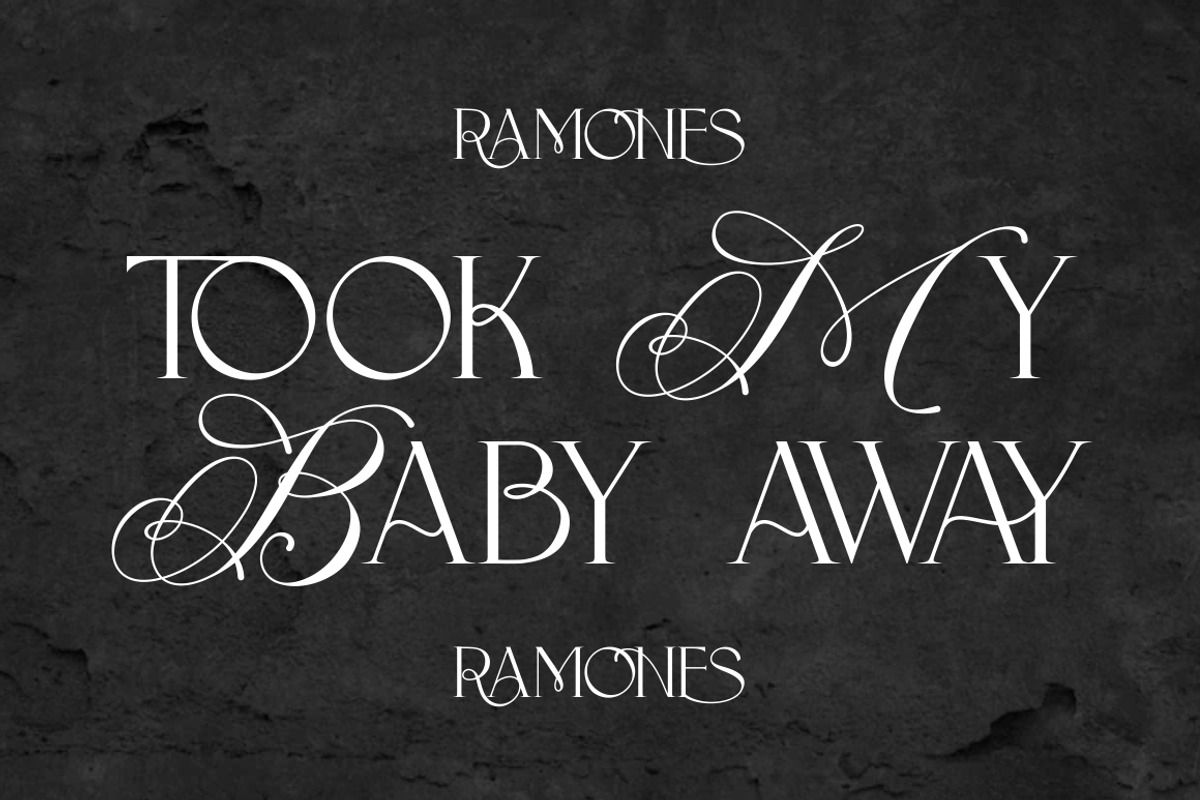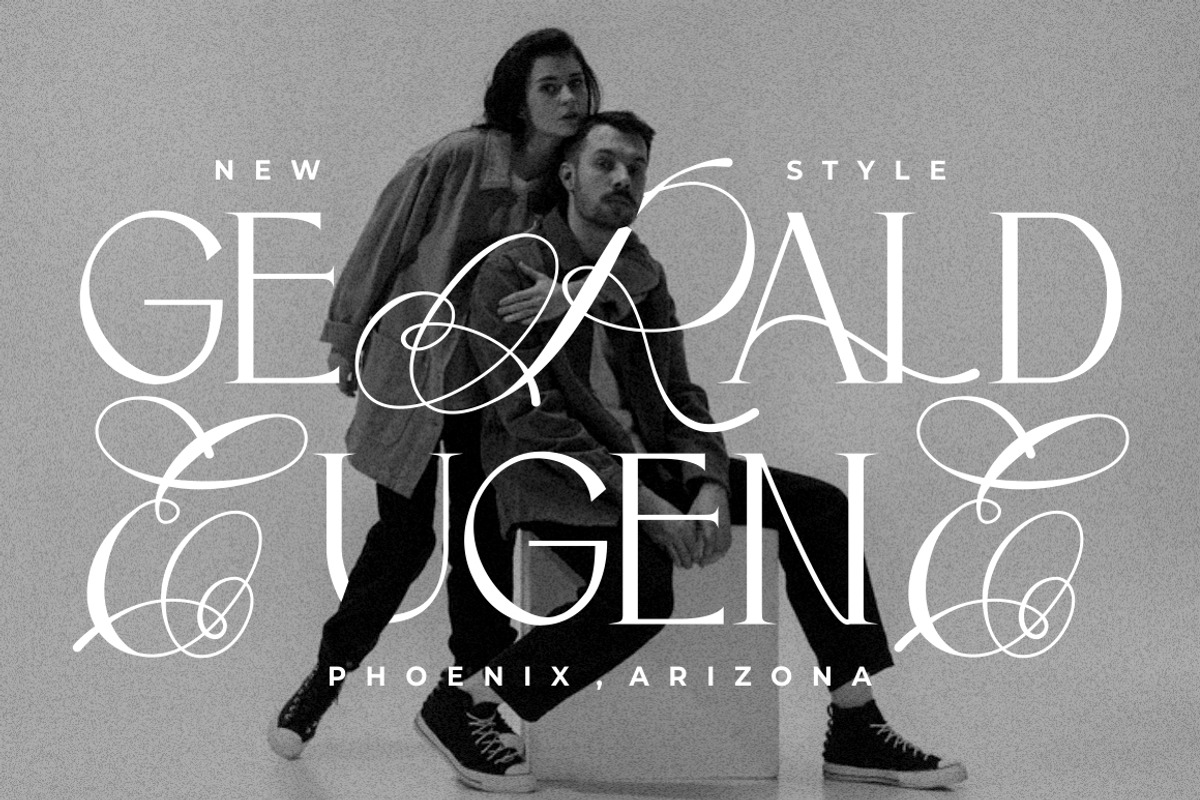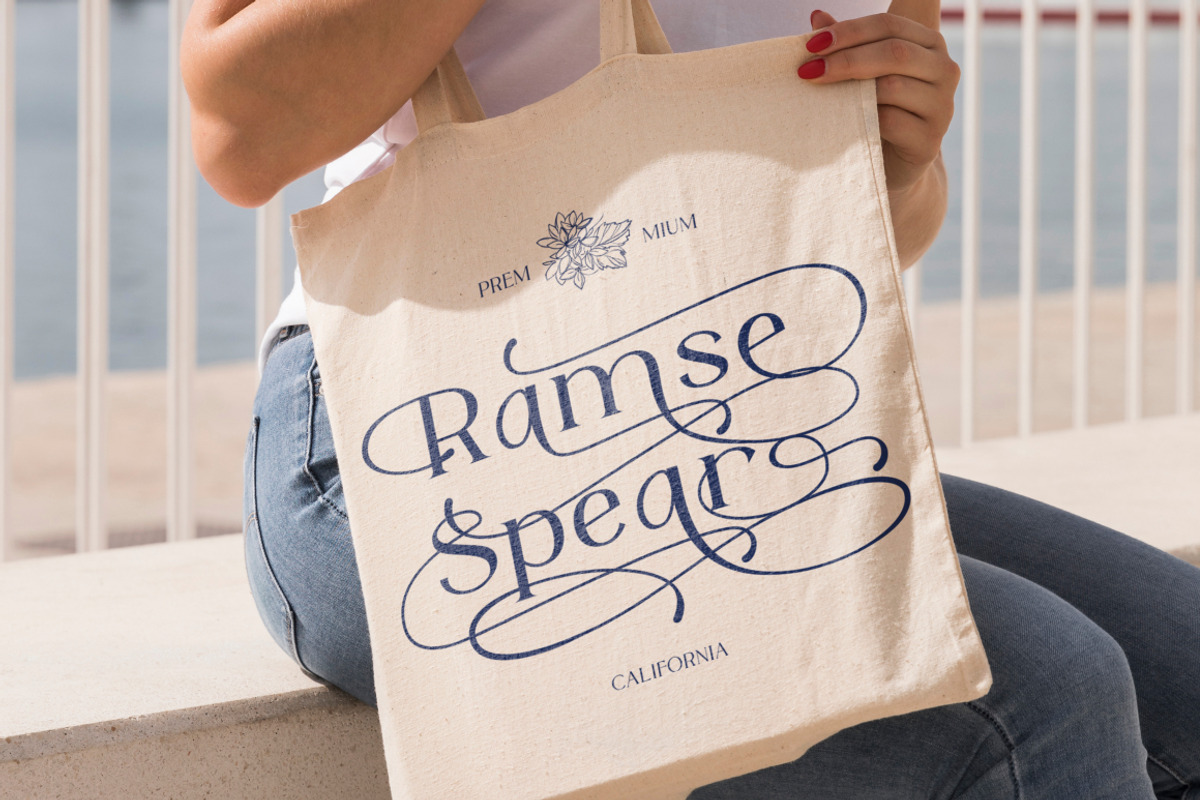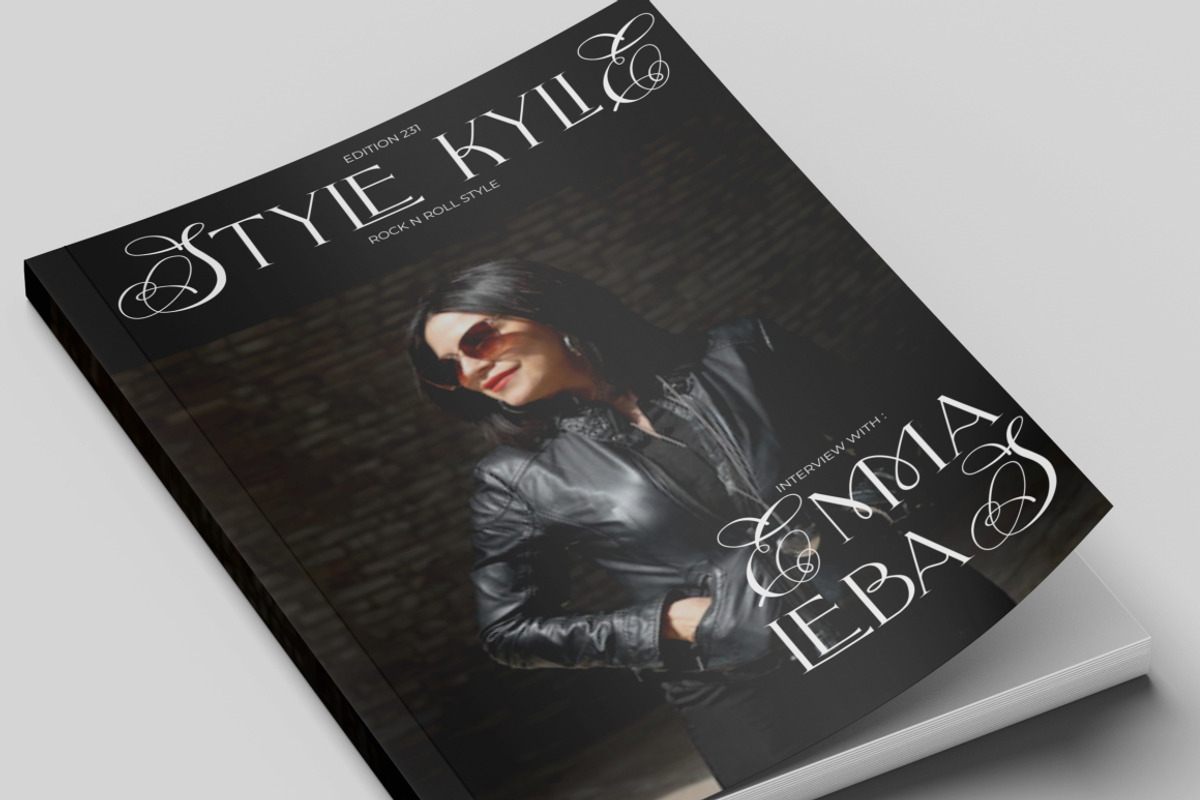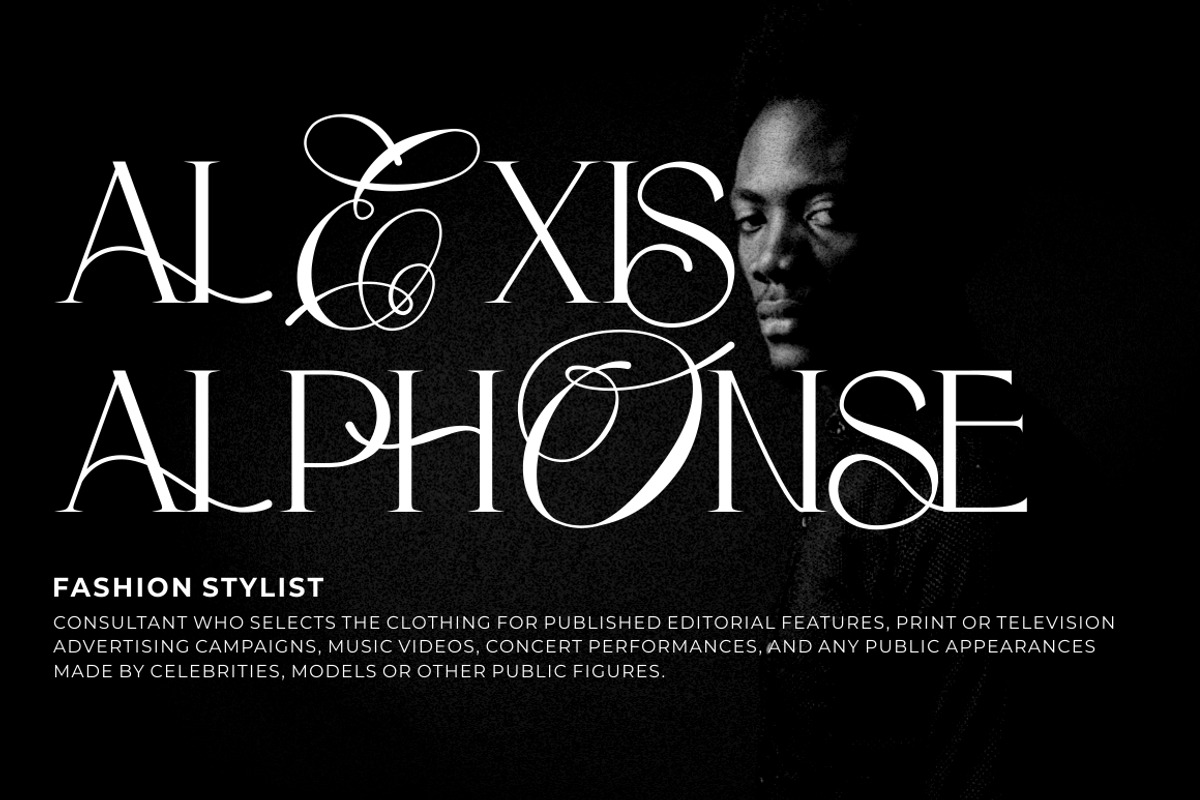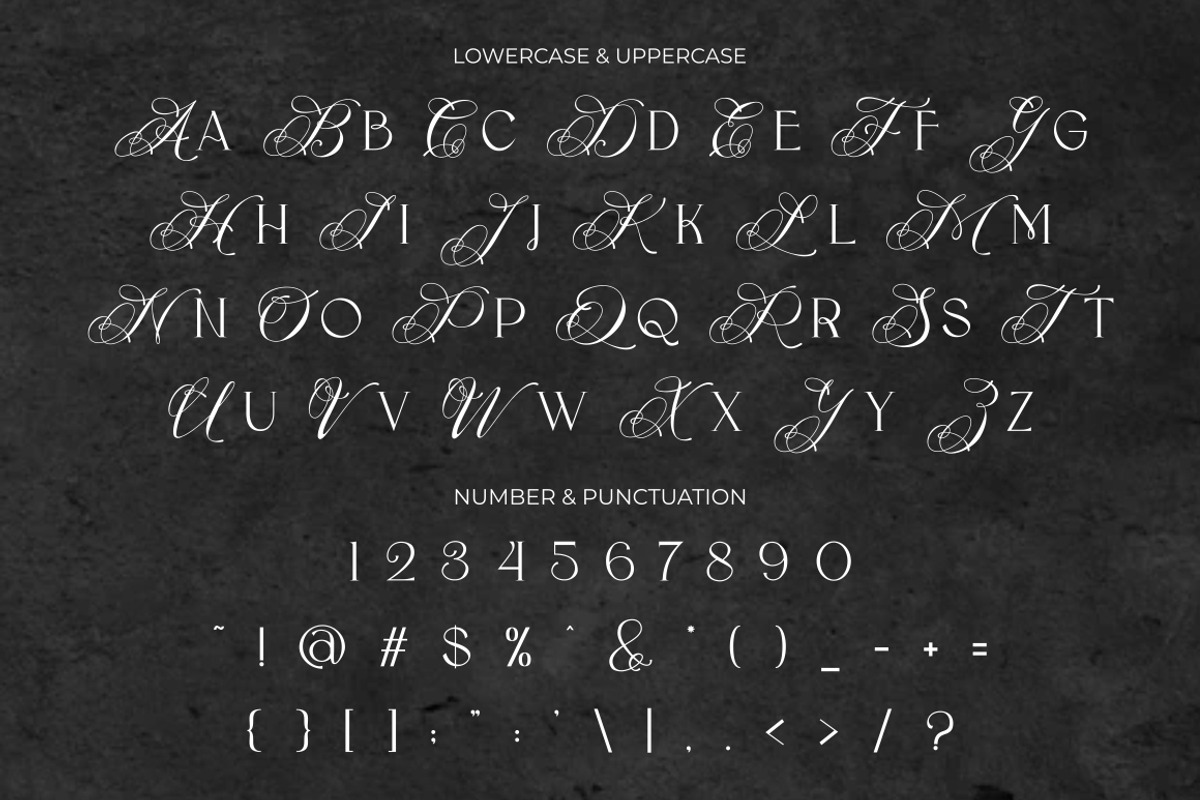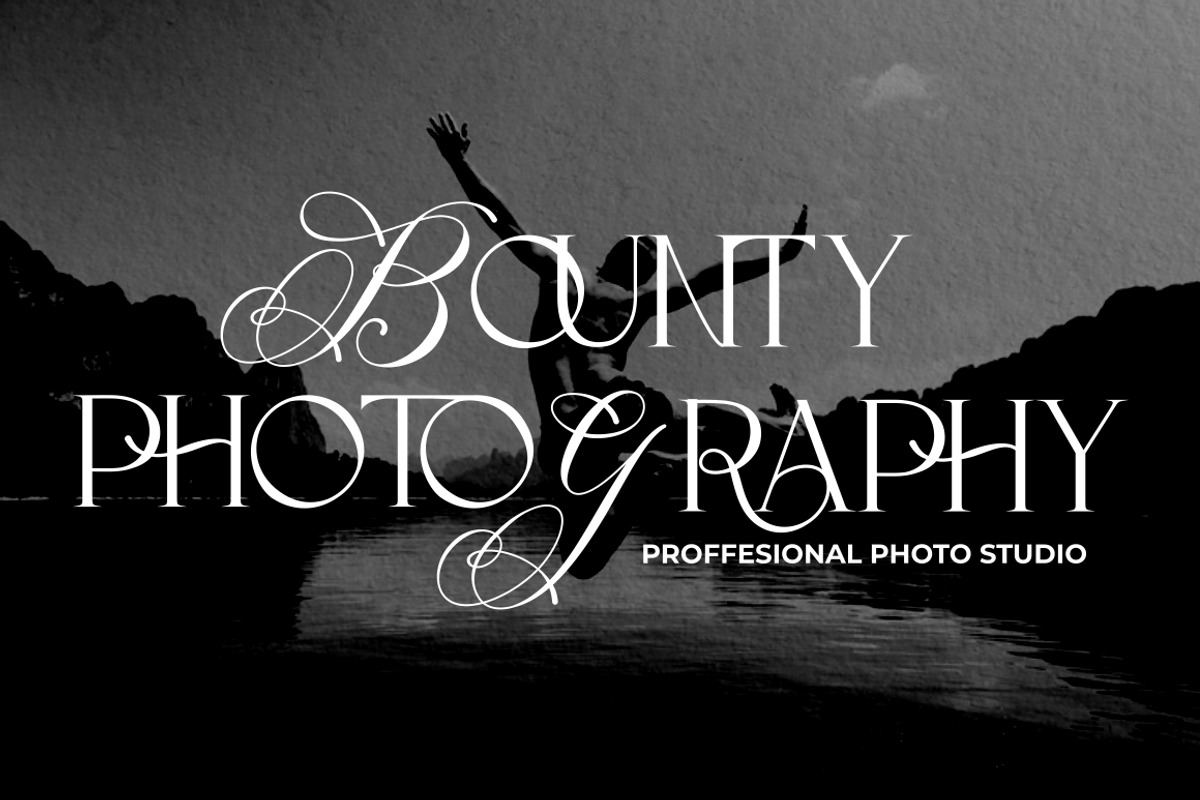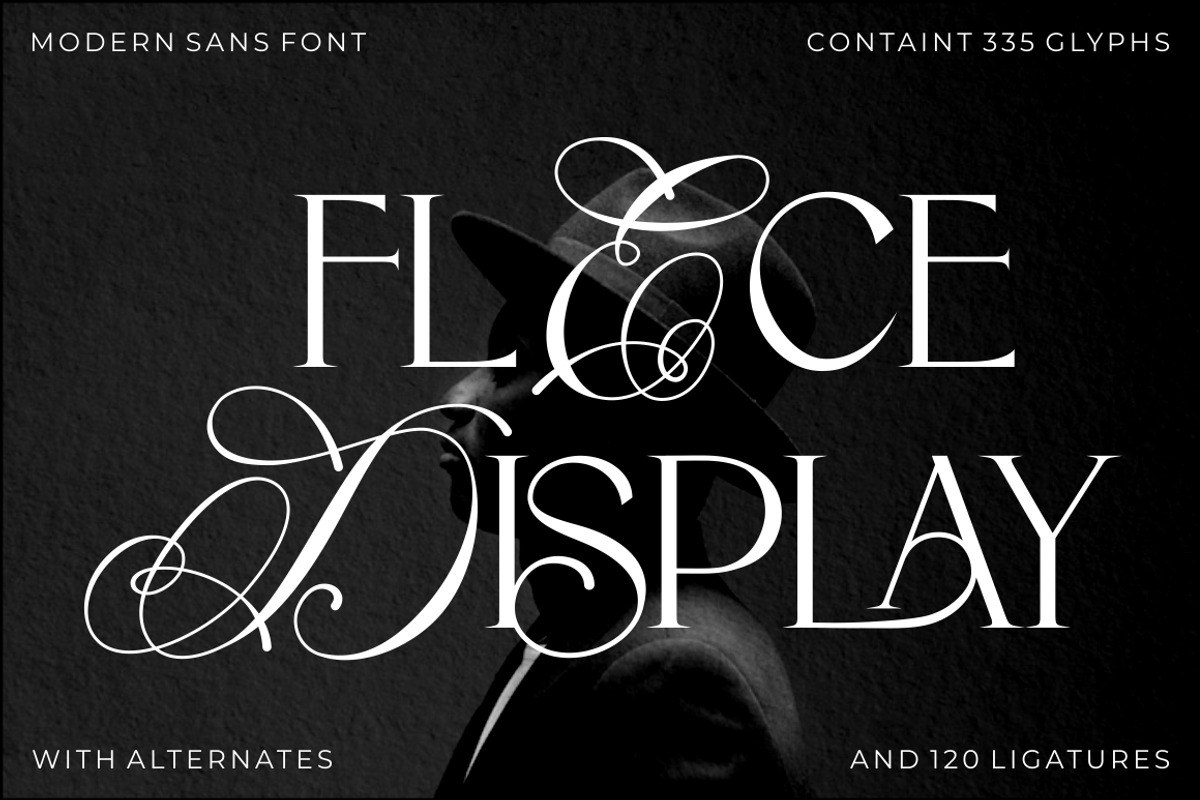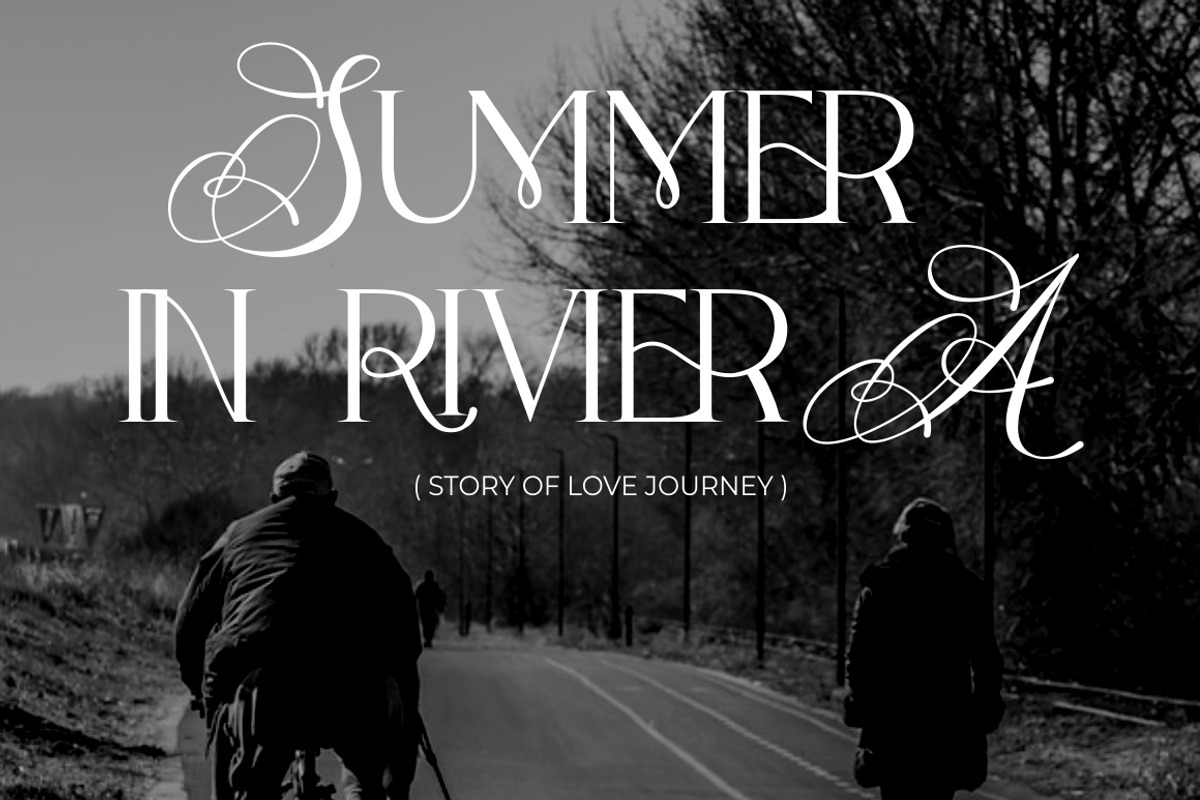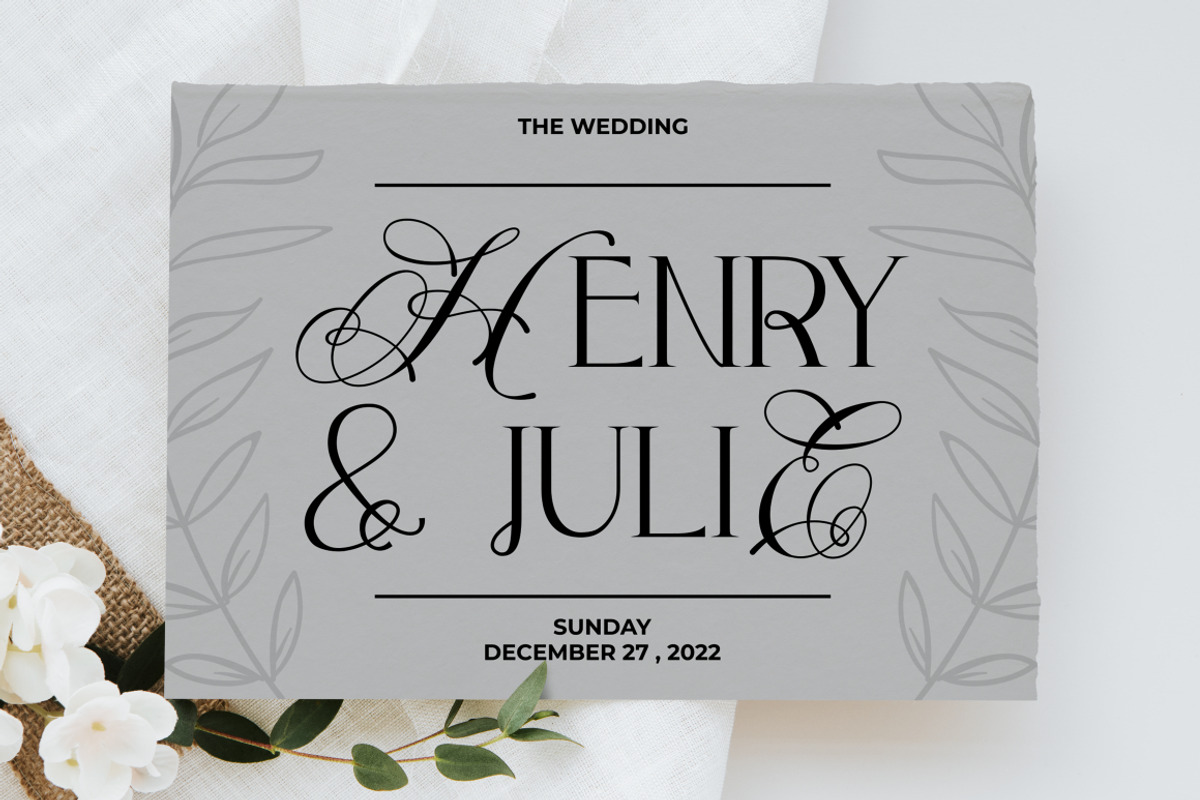
Flece Display - Modern Sans Font
Flece Display - Modern Sans Font is a versatile font that offers the perfect blend of modern style and elegance. It features two distinct styles: calligraphy and sans serif, providing a unique combination that is both luxurious and contemporary. This font is well-suited for various design projects, including logos, titles, book covers, headlines, magazines, products, invitations, and weddings, where a touch of sophistication and visual impact is desired.
In addition to its stunning aesthetic, Flece Display also offers a range of features and a comprehensive font package. The font includes both calligraphy and sans serif styles, allowing you to switch seamlessly between the two to achieve the desired look for your design. It provides an extensive collection of characters and glyphs, ensuring versatility and creative possibilities. With the purchase of Flece Display, you will receive the font files in formats such as .otf, .ttf, and .woff, ensuring compatibility across different software and platforms. This means you can easily install and use the font in various design applications, making it convenient for your design workflow.
With its modern and elegant style, Flece Display - Modern Sans Font is the ideal choice for creating impactful and visually stunning designs. Whether you're designing a logo for a high-end brand, crafting attention-grabbing titles, or creating sophisticated invitations, this font will elevate your design projects with its luxurious and contemporary aesthetic. With its versatile features and comprehensive font package, Flece Display offers both convenience and creative flexibility, making it a valuable asset for designers.